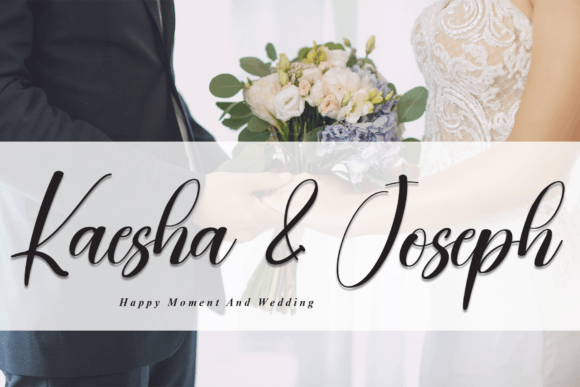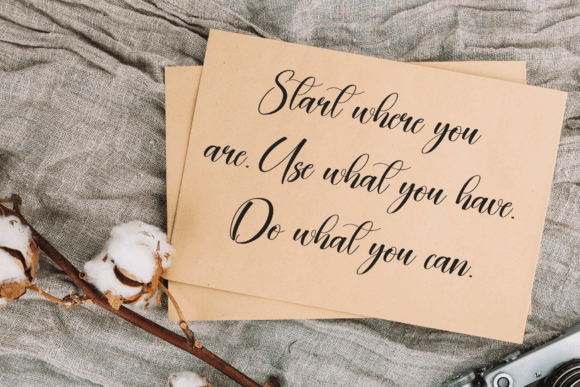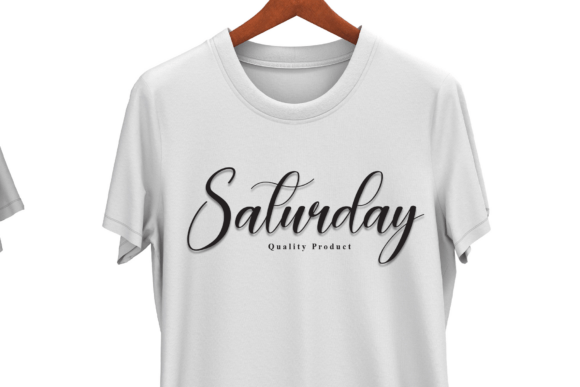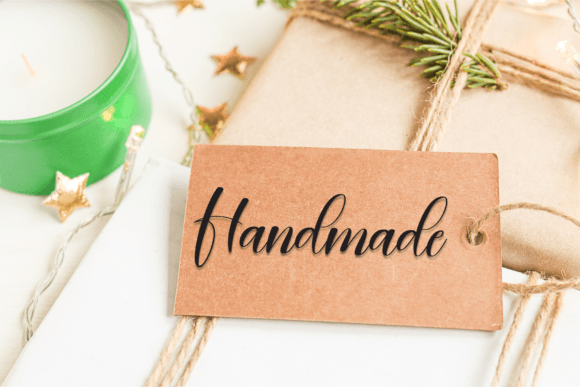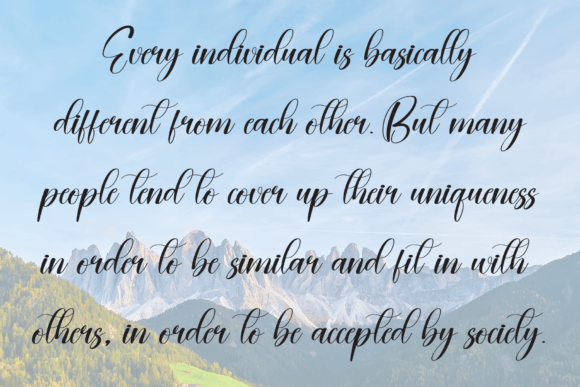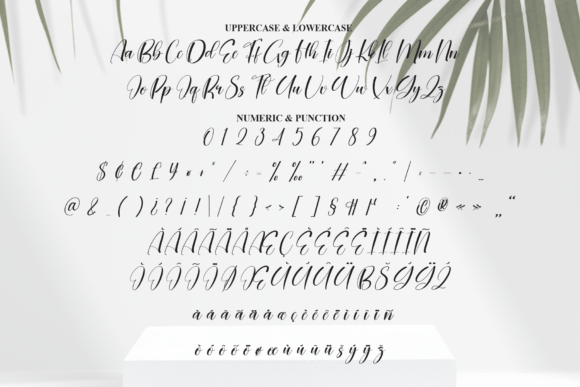
Betterfl Font: Elevate Your Designs with Luxurious Handwritten Script
Are you looking for a font that can add a touch of elegance and sophistication to your designs? Look no further than Betterfl, also known as Bellerfl, a luxurious handwritten script font that is perfect for creating stunning visual content. With its flowing curves and sophisticated details, this font is ideal for designers and crafters who want to elevate their designs to the next level.
What is Betterfl Font?
Betterfl, or Bellerfl, is a beautiful handwritten script font that features an elegant italic style. Its unique and refined aesthetic makes it perfect for a wide range of design applications, from wedding invitations and branding to logos, packaging, and social media graphics. This versatile typeface exudes class and charm, making it an excellent choice for designers who want to add a touch of refinement to their projects.
Key Features of Betterfl Font
- Elegant Italic Style: Betterfl’s italic style gives it a sense of movement and fluidity, making it perfect for creating eye-catching and dynamic designs.
- Flowing Curves: The font’s flowing curves and sophisticated details make it ideal for creating luxurious and high-end designs.
- Versatile: Betterfl is a versatile typeface that can be used for a wide range of design applications, from wedding invitations to branding and packaging.
- Easy to Read: Despite its elegant and cursive nature, Betterfl is easy to read, making it perfect for body text and headlines.
Use Cases for Betterfl Font
Betterfl is a versatile font that can be used for a wide range of design applications. Here are some use cases where this font truly shines:
- Wedding Invitations: Betterfl’s elegant and sophisticated aesthetic makes it perfect for creating stunning wedding invitations that set the tone for a luxurious and memorable event.
- Branding and Logos: This font is ideal for creating high-end branding and logos that exude class and sophistication.
- Upscale Packaging: Betterfl’s luxurious aesthetic makes it perfect for creating upscale packaging that stands out on store shelves.
- Social Media Graphics: This font is also great for creating chic and sophisticated social media graphics that help you stand out in a crowded online space.
Why Choose Betterfl Font?
- Unique Aesthetic: Betterfl’s unique and elegant aesthetic sets it apart from other fonts, making it perfect for designers who want to create something truly special.
In conclusion, Betterfl, or Bellerfl, is a luxurious handwritten script font that is perfect for designers and crafters who want to elevate their designs to the next level. With its elegant italic style, flowing curves, and sophisticated details, this font is ideal for creating stunning visual content that exudes class and charm. Whether you’re creating wedding invitations, branding and logos, upscale packaging, or social media graphics, Betterfl is an excellent choice. So why settle for an ordinary font when you can choose Betterfl and create something truly special?